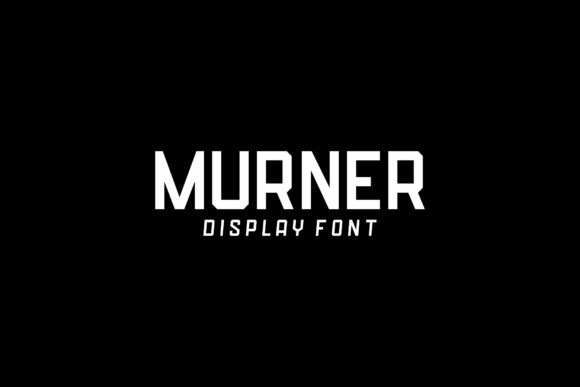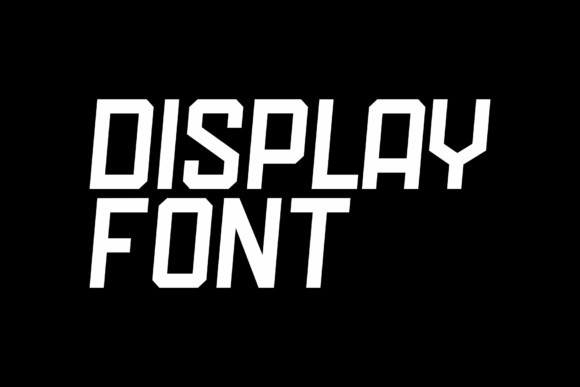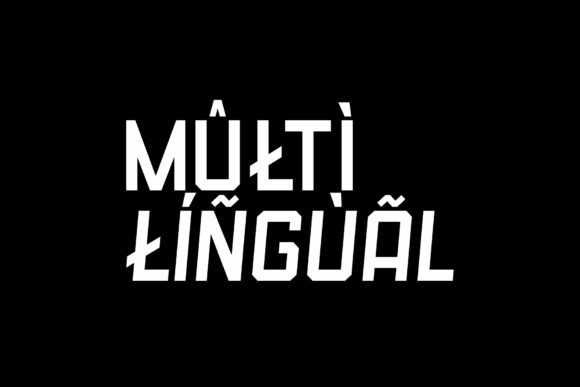
Murner Font
Murner is a clean and modern sans font, suitable for logos, cover titles, posters, invitations, and a big variety of other design products.